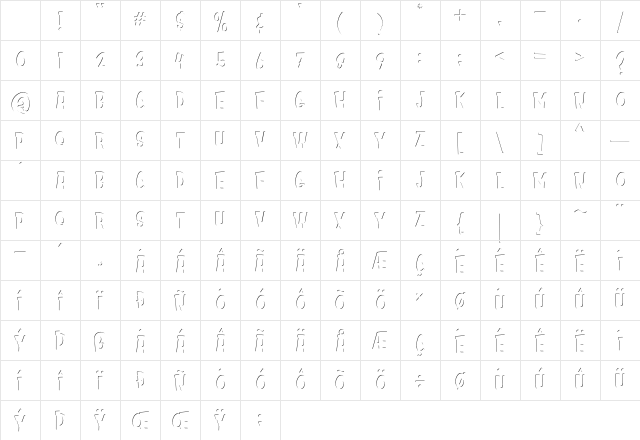
Kids Zone Inner has an approachable, lighthearted character - its loose, expressive forms are well-suited to children's content, casual branding, and fun-first design.
Font Pairing: Pairs well with a rounded or humanist sans for body copy, maintaining the friendly tone without relying on Kids Zone Inner to carry extended reading.
Pro Tip: Use Kids Zone Inner at larger display sizes where its expressive character can land. Pair with a clean, simple sans for body copy to maintain readability.